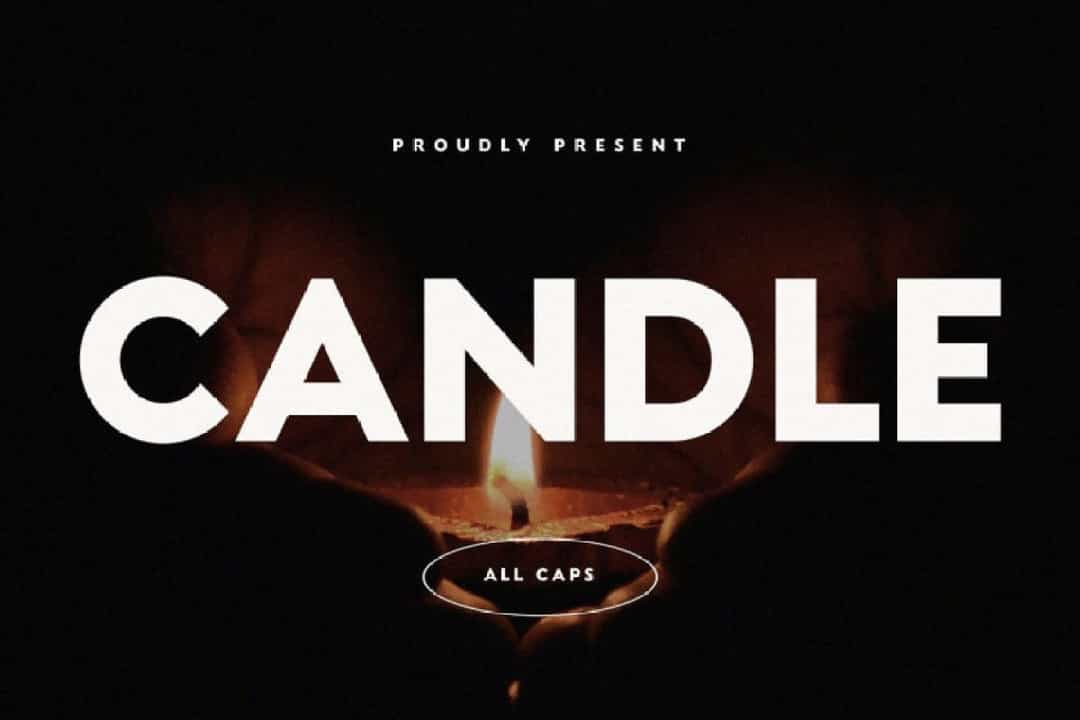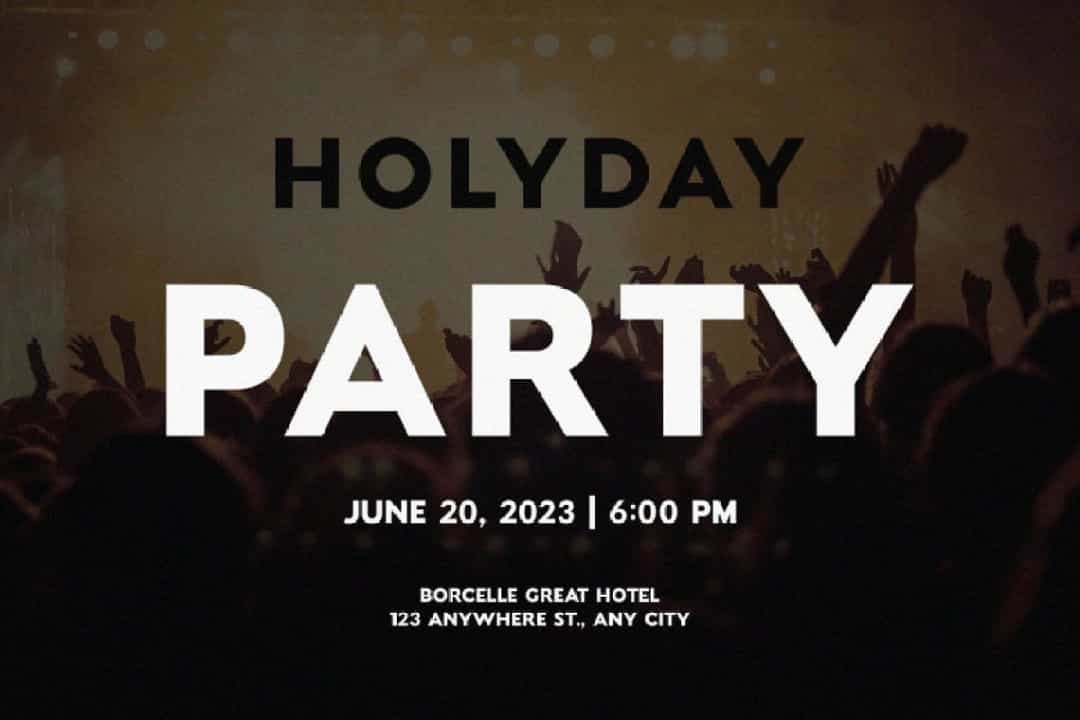
Candle is a sophisticated modern and contemporary sans serif font designed to impress with bold characters yet remain clean and contemporary. Perfect for web logos, magazines, social media pages and more; Candle font is ready and waiting to add elegance, chic modernity and classy design elements into any project! Candle’s modern font design gives any design project that touch of sophistication while looking trendy and classy at once!